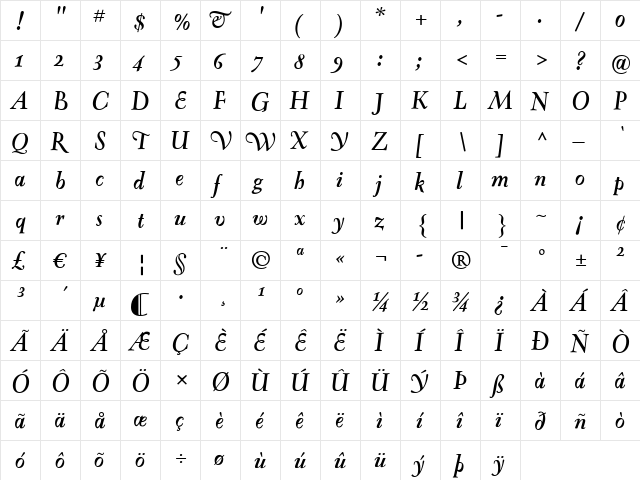
Oneleigh Bold Italic Font Preview
Design Context for Oneleigh Typeface
Oneleigh offers clean, dependable letterforms without strong stylistic allegiance, making it a practical choice for designers who need flexibility. Its italic angle brings a sense of urgency and motion to the letterforms. The heavy weight commands attention and anchors typographic hierarchies.